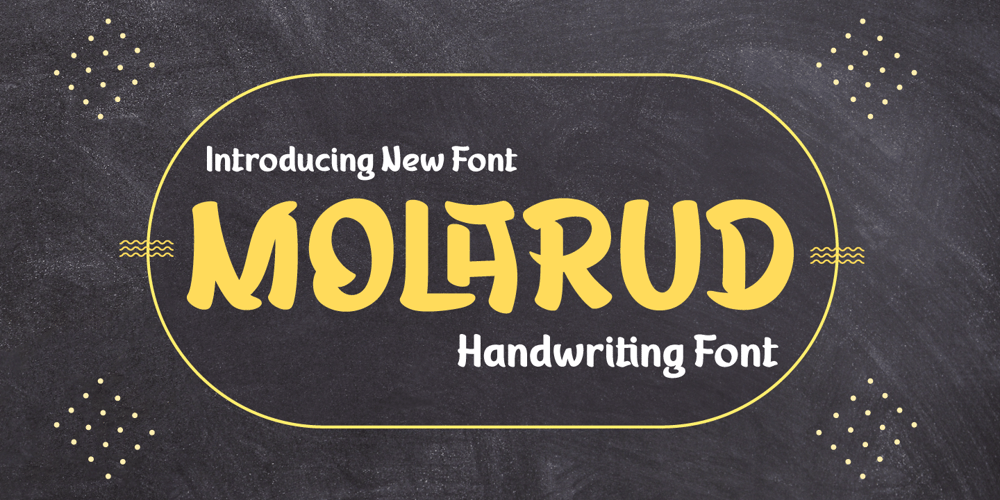
MOLARUD Font Family was designed by Rozikan and published by Twinletter. MOLARUD contains 1 styles and family package options. Introducing MOLARUD Font – a captivating display typeface that effortlessly captures the authenticity of handwriting! Elevate your projects with the artistic touch of MOLARUD, a seamless fusion of style and individuality. Explore MOLARUD today to see your creative visions come to life!What’s Included : File font All glyphs Iso Latin 1 Alternate, Ligature Simple installations PUA Encoded Characters – Fully accessible without additional design software. Fonts include Multilingual support